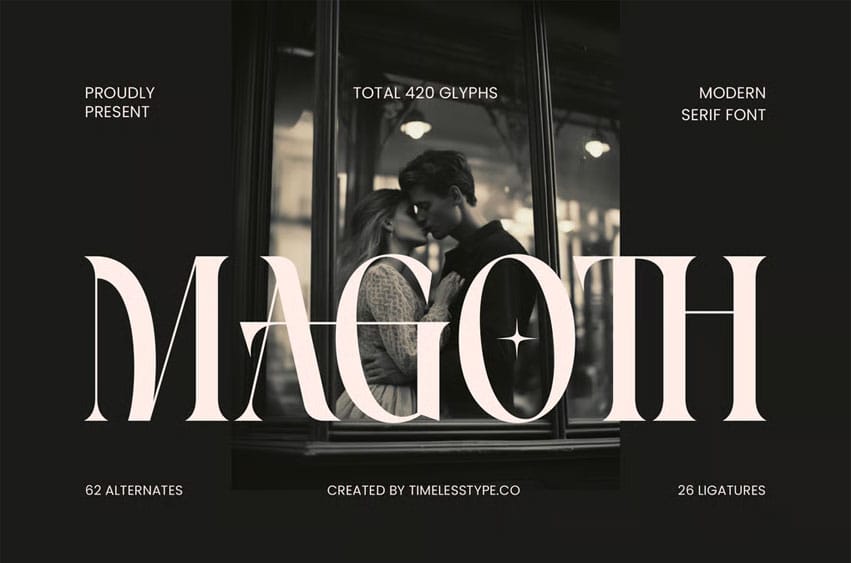
Magoth Font is a modern serif font that embodies sophistication, romance, and luxury in perfect harmony. With 62 alternates, 26 ligatures, and a total of 420 glyphs, this typeface combines elegant contrast and sleek curves, ideal for fashion branding, editorials, packaging, and artistic logo design.
Its graceful serifs and refined letterforms make Magoth a timeless choice for both contemporary and classic projects. Designed with precision and emotional depth, this font adds character, style, and elegance to every composition it graces.